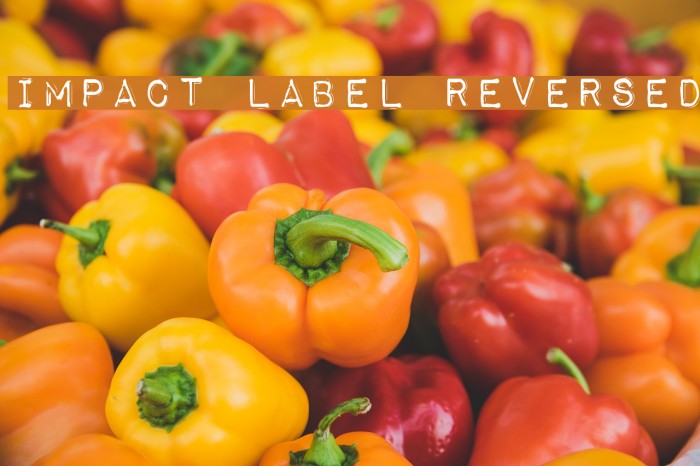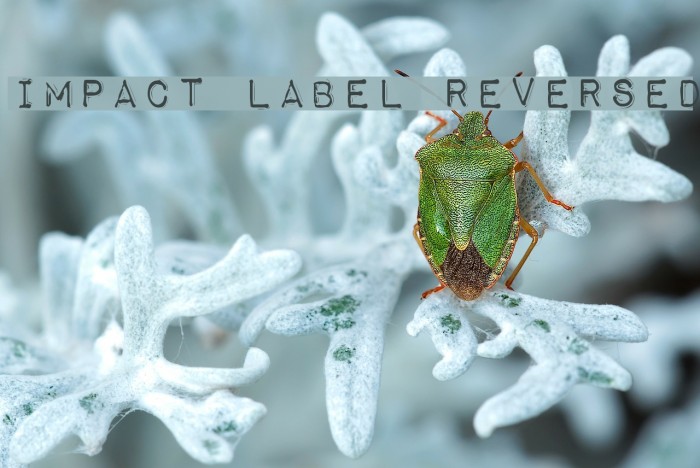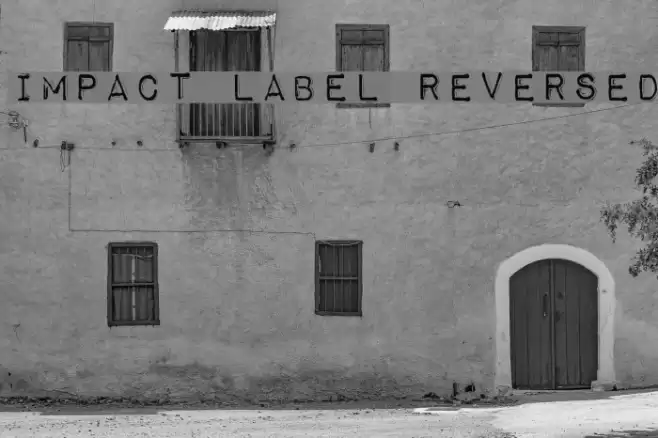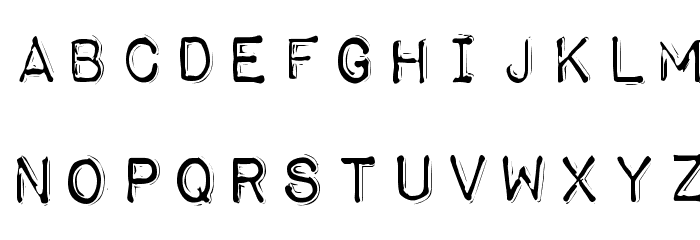
Impact Label Reversed Font
Impact Label Reversed Description
This font features a bold, distressed style with a reversed impact that gives it a unique, rugged appearance. The characters are uppercase and lowercase with a consistent, heavy weight that makes them stand out. The edges are rough and uneven, creating a textured look that mimics the appearance of worn or stamped letters. This style is reminiscent of vintage typewriter fonts but with a modern twist, making it suitable for projects that require a bold statement. The numbers and special characters maintain the same distressed aesthetic, ensuring a cohesive look across all text elements.
| Overall Style | Vintage |
| Proposed Projects | Ideal for posters, album covers, branding projects, and any design requiring a bold, vintage aesthetic. |